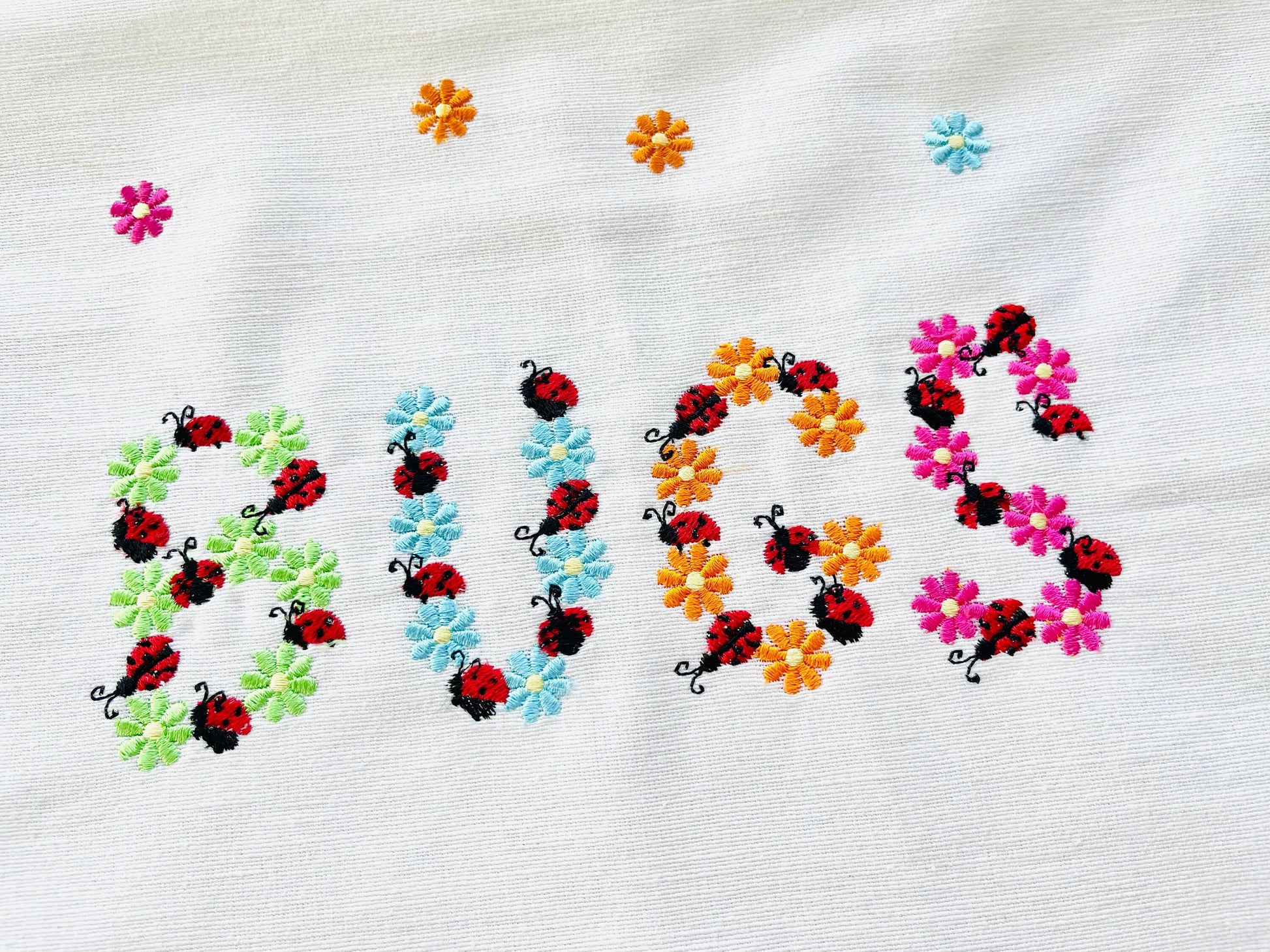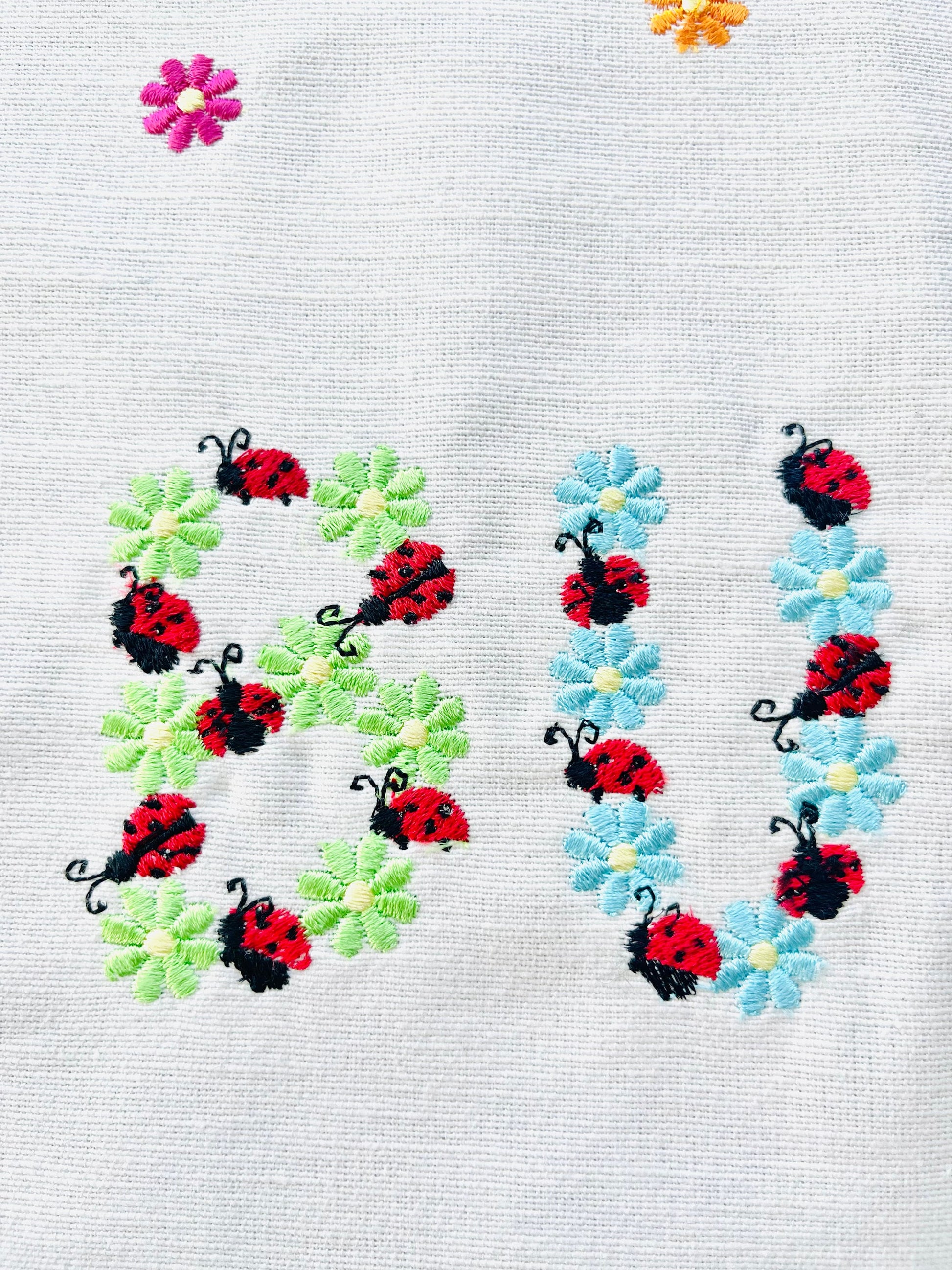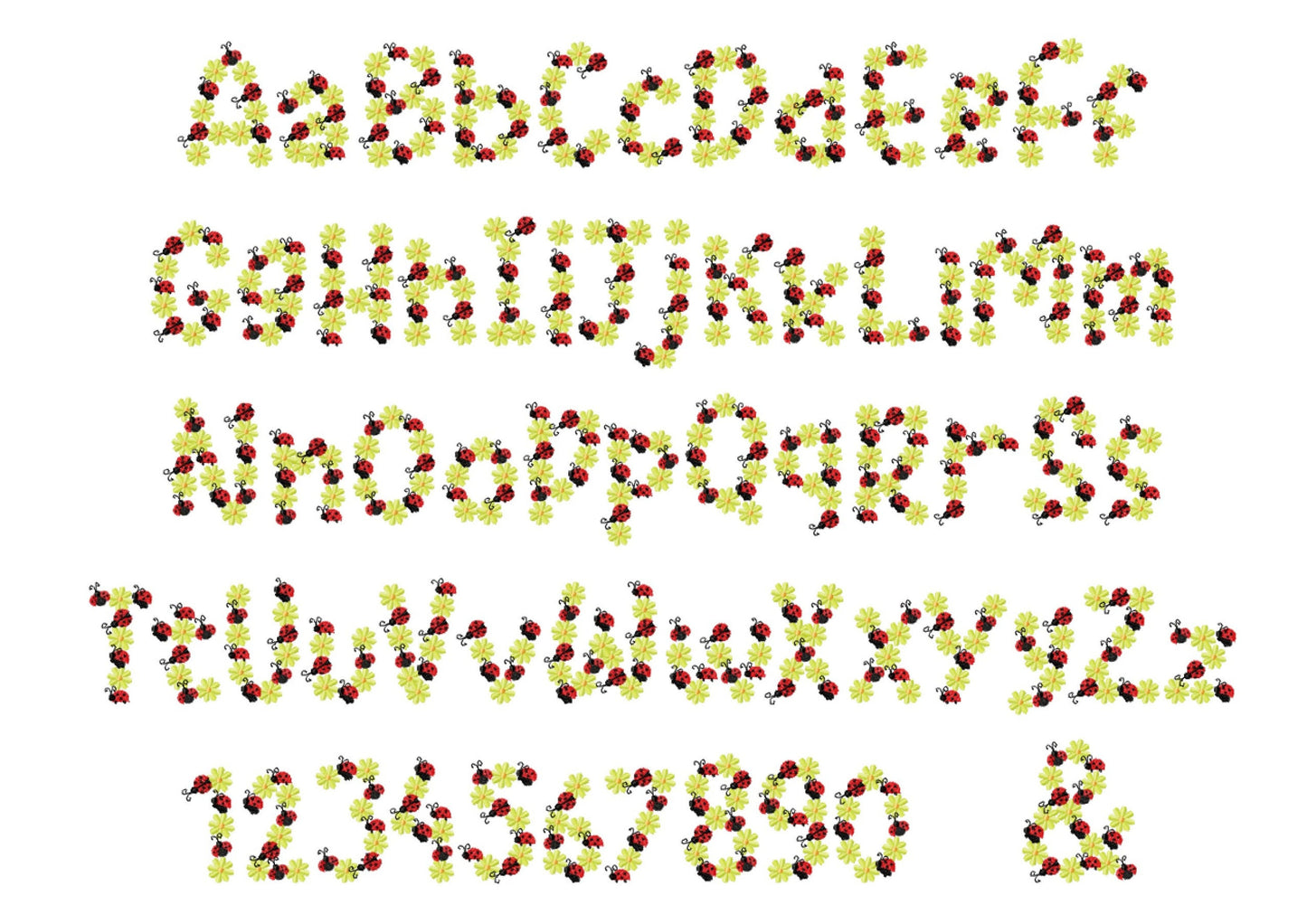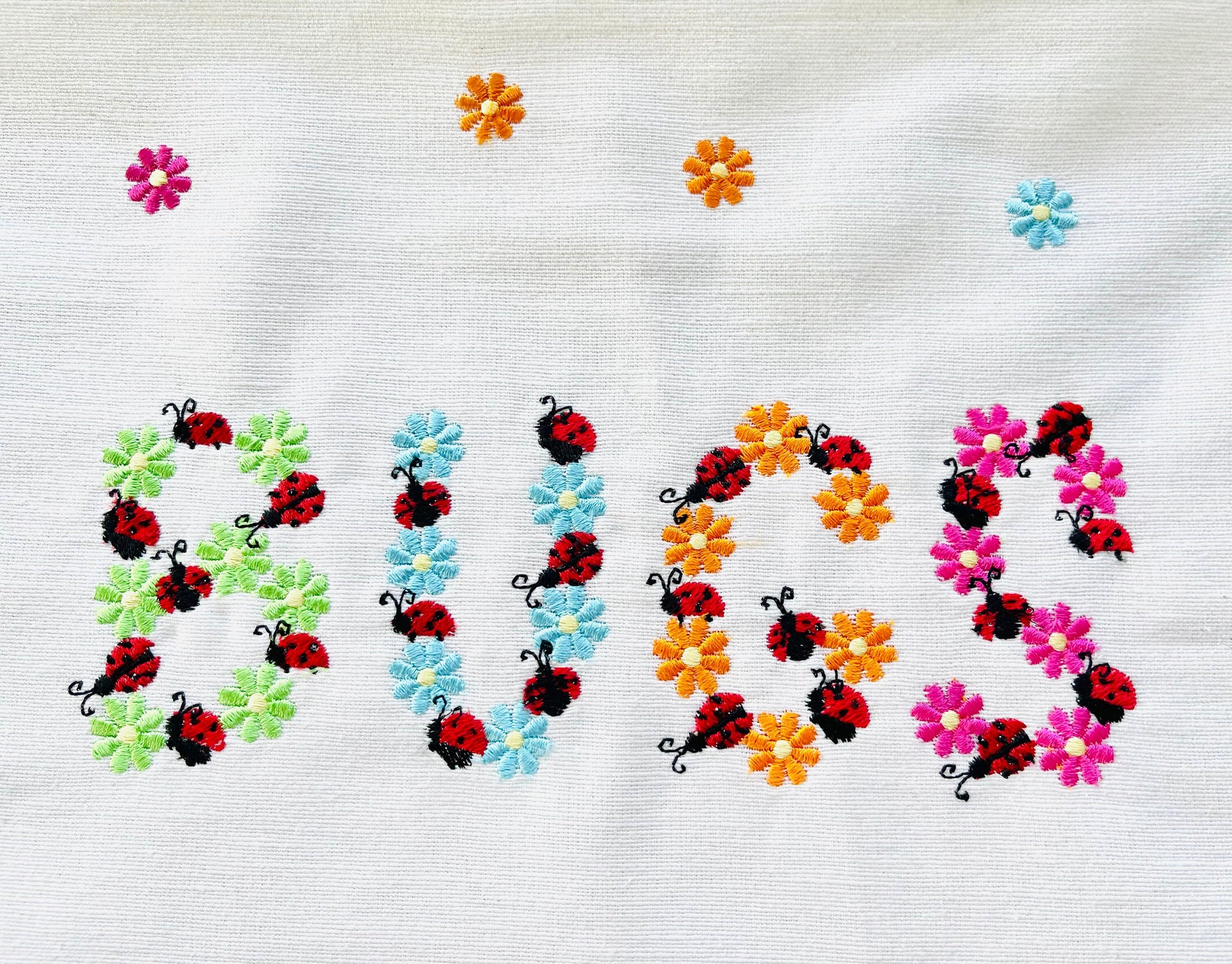
Or click to open the linkA country floral font with daisies and little ladybugs. Sweet for garden flags, kids' summer shirts, pillows and names.
Uppercase and lowercase letters, numbers 0 to 9 and an ampersand, in eight sizes: 1.8, 2, 2.4, 3, 3.3, 3.8, 4.5 and 5 inches.